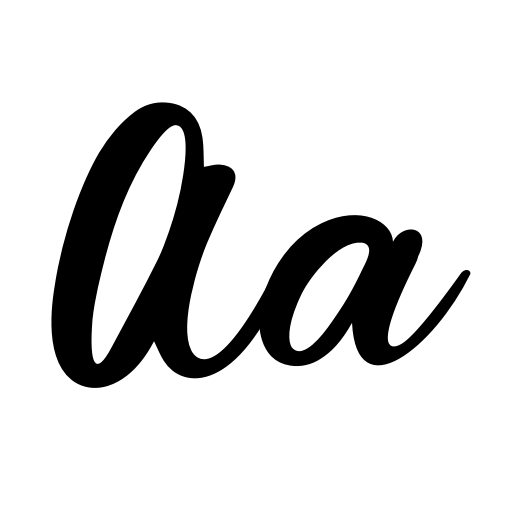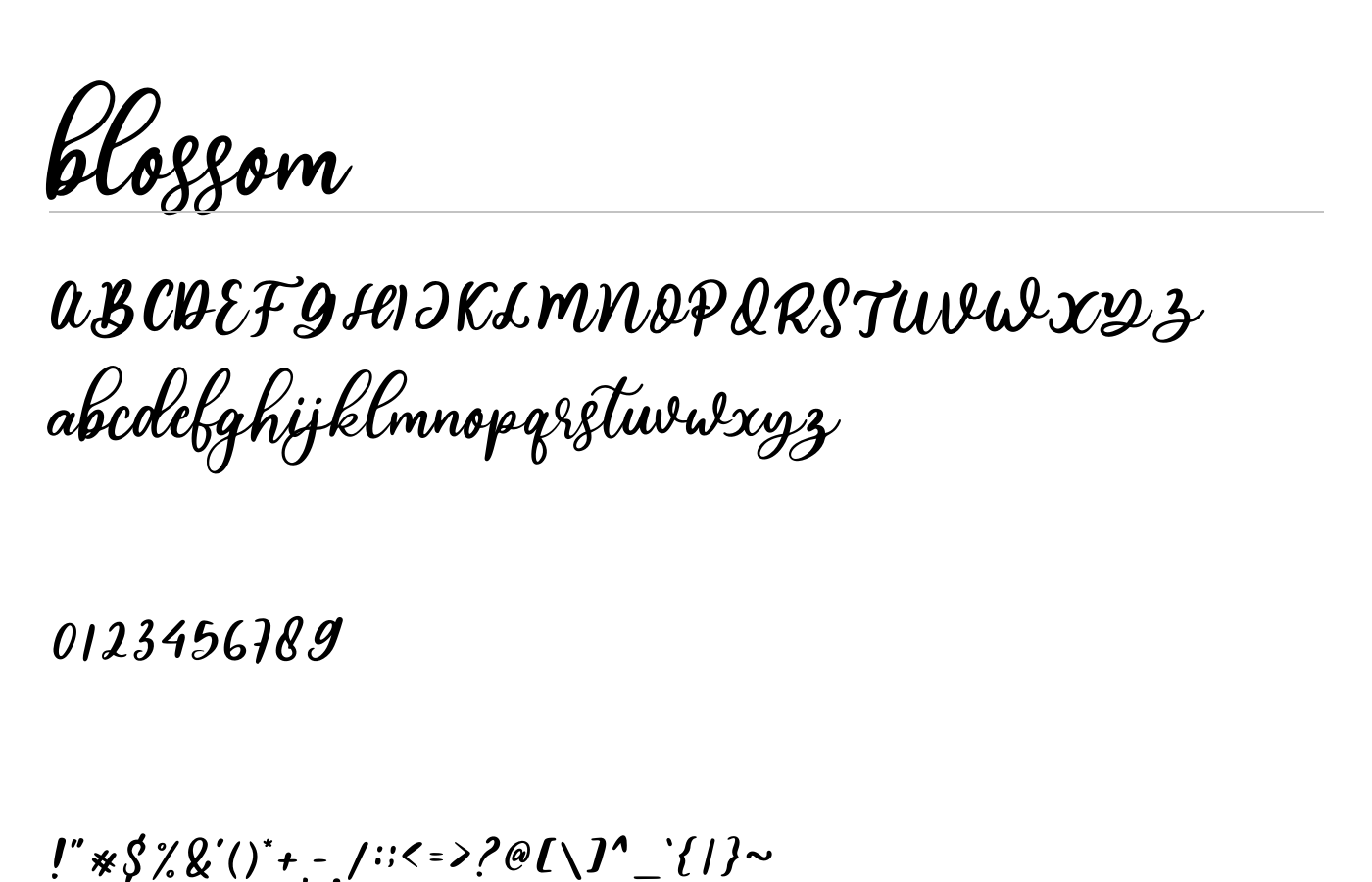
Blossom is a charming script font with smooth, flowing strokes and a warm, handwritten feel. Its medium weight and slightly condensed letterforms give it an elegant yet approachable style, perfect for feminine designs, invitations, branding, and creative projects that seek a personal and stylish touch. This font works beautifully for headlines and logos where a soft, friendly personality is desired.
blossom Font
About blossom Font